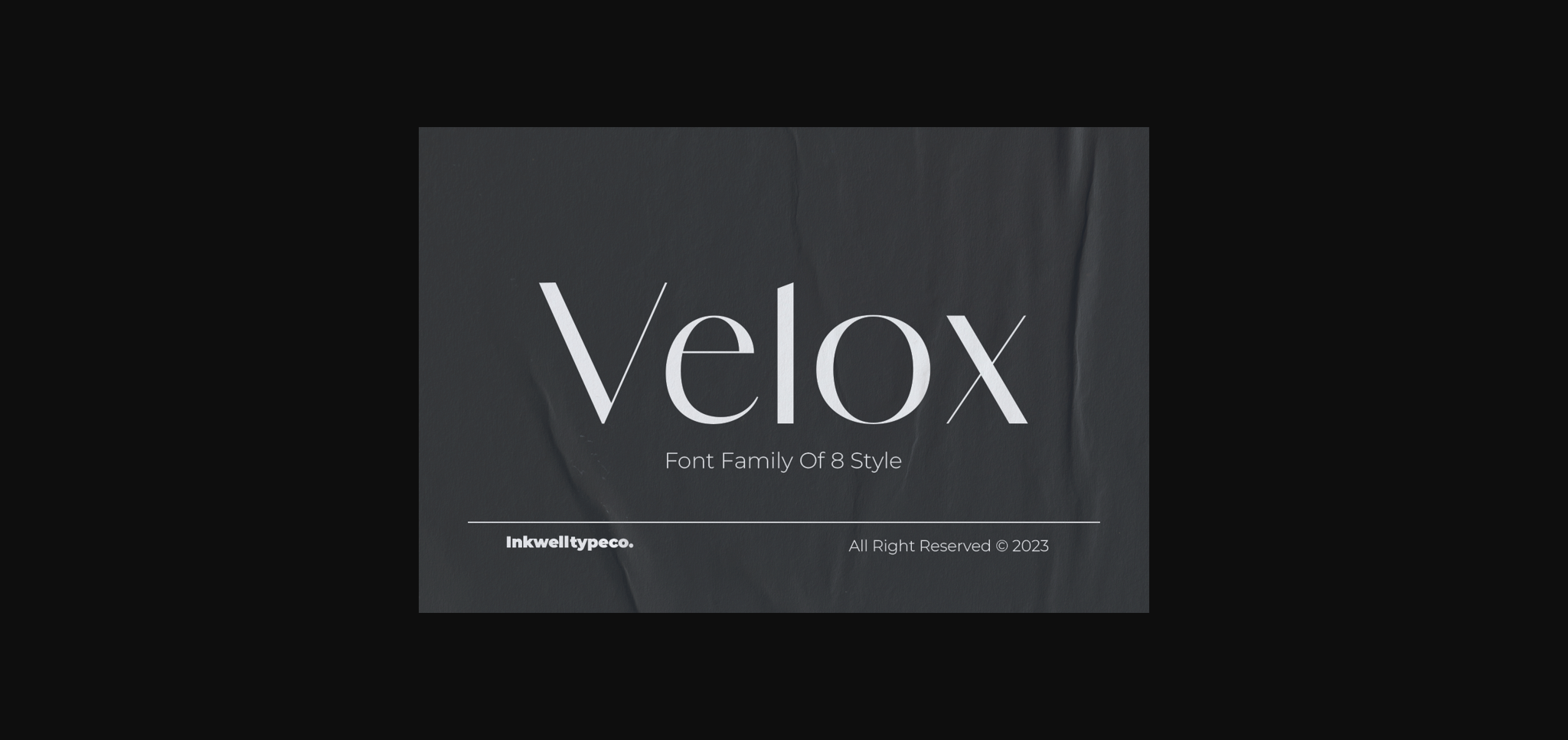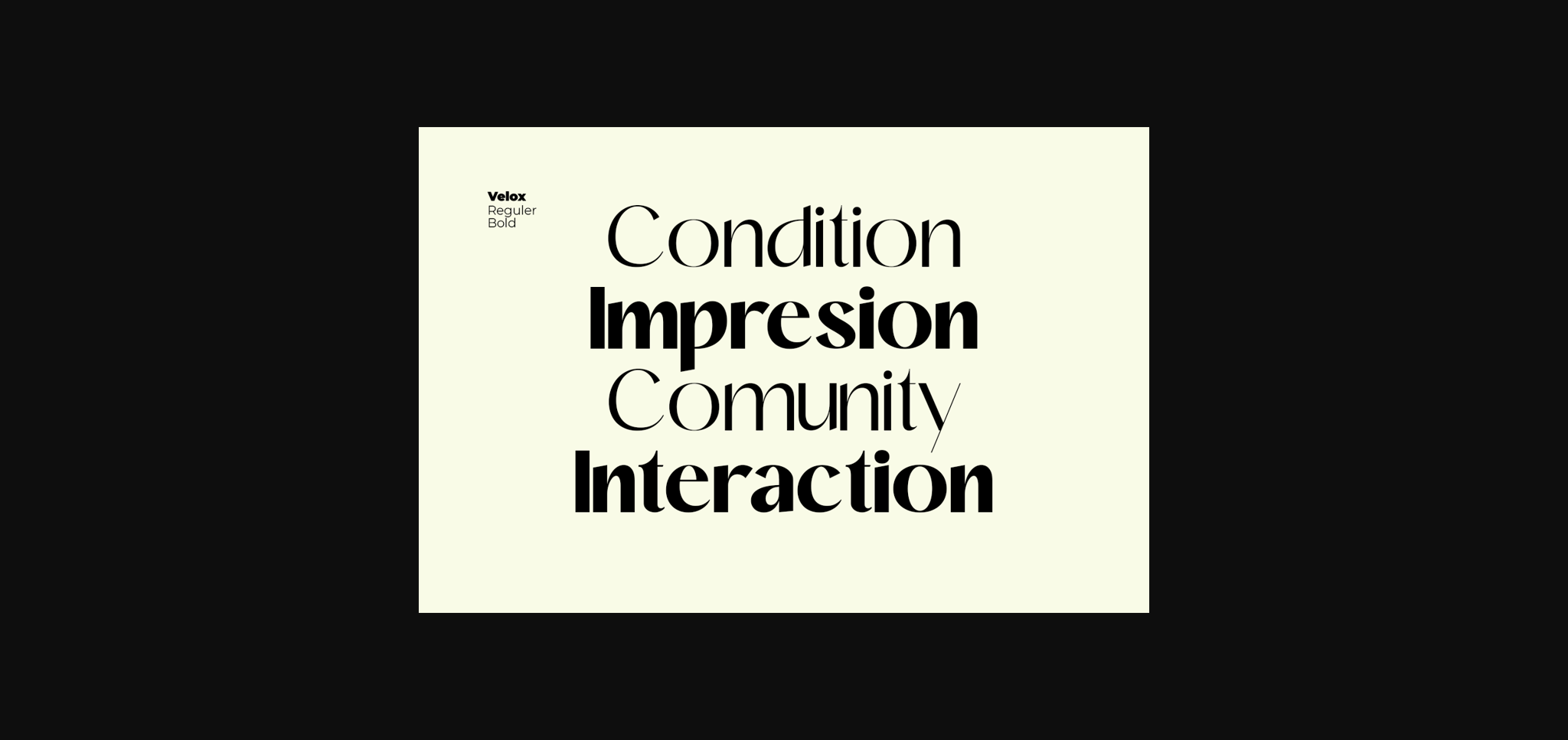
About Velox Sans Font
Velox Sans strikes a perfect balance between simplicity and modernity. With its clean-cut, sans-serif characteristics, this font is meticulously crafted to provide clarity and readability in various design contexts.
Every numeral and letter within Velox Sans has been thoughtfully designed to ensure optimal legibility, even at very small or large sizes. Its straightforward, linear shapes deliver a clean and minimalist appearance, making it suitable for a wide range of design purposes, such as user-friendly web displays, professional business documents, or contemporary brand identities.
With various styles and weights available, Velox Sans offers high flexibility in its use. You can easily apply this font in headlines, paragraphs, body text, or other design elements, ensuring a seamless fit with your project.
Velox Sans is an excellent choice for those who value clarity, simplicity, and precision in typography. The font brings a modern aesthetic that will enhance your design with assertiveness and elegance. With Velox Sans, you have a powerful tool to convey your message in a highly professional style.
Use Velox Sans to provide the perfect finishing touch to your design projects and let its clarity become a memorable focal point.
Every numeral and letter within Velox Sans has been thoughtfully designed to ensure optimal legibility, even at very small or large sizes. Its straightforward, linear shapes deliver a clean and minimalist appearance, making it suitable for a wide range of design purposes, such as user-friendly web displays, professional business documents, or contemporary brand identities.
With various styles and weights available, Velox Sans offers high flexibility in its use. You can easily apply this font in headlines, paragraphs, body text, or other design elements, ensuring a seamless fit with your project.
Velox Sans is an excellent choice for those who value clarity, simplicity, and precision in typography. The font brings a modern aesthetic that will enhance your design with assertiveness and elegance. With Velox Sans, you have a powerful tool to convey your message in a highly professional style.
Use Velox Sans to provide the perfect finishing touch to your design projects and let its clarity become a memorable focal point.